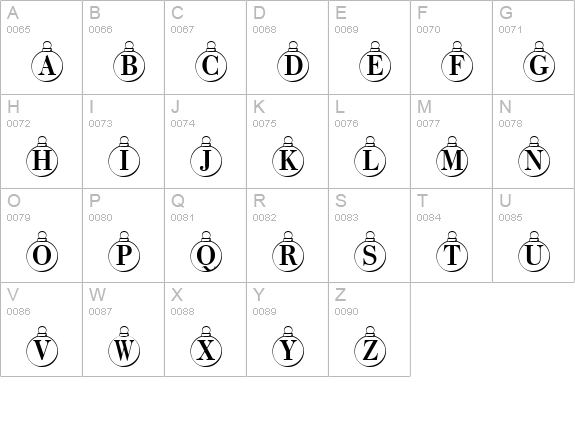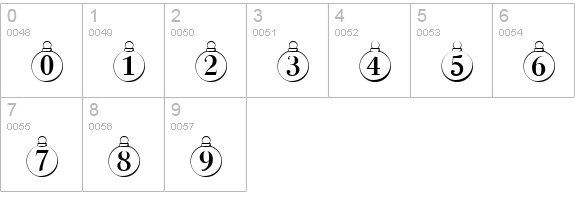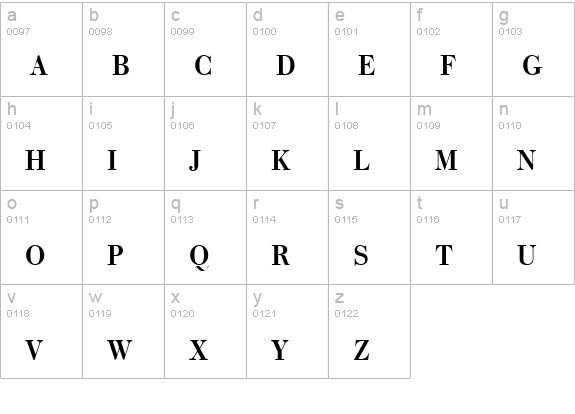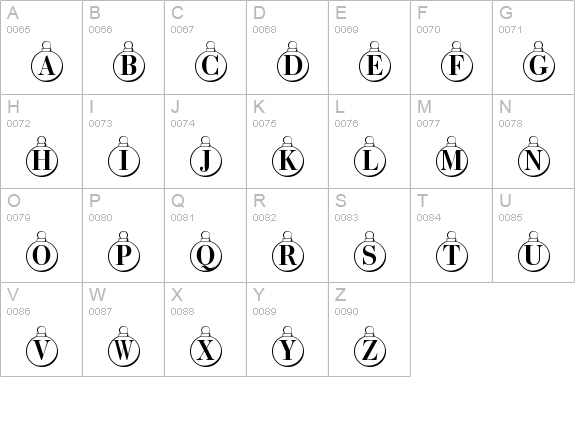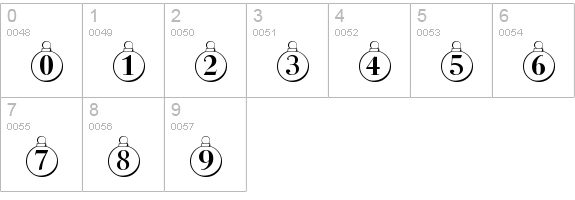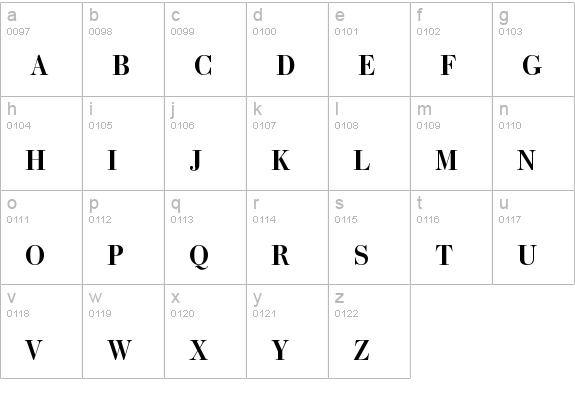
ChristmasTree Regular is the standard, neutral variant in the ChristmasTree typeface family \xE2\x80\x94 well suited to general body text, paragraphs, and standard typographic work.
Introducing ChristmasTree Regular font, the perfect typeface to add a touch of holiday spirit to your designs! This charming font features whimsical tree-like elements that capture the essence of Christmas. Whether you're creating greeting cards, invitations, or festive posters, ChristmasTree Regular font will bring a festive flair to your projects. Best of all, ChristmasTree Regular font is available for free download at FontsMarket.com! Don't miss out on this wonderful opportunity to add a festive touch to your designs without spending a dime. Download ChristmasTree Regular font today and spread the holiday cheer in your projects!